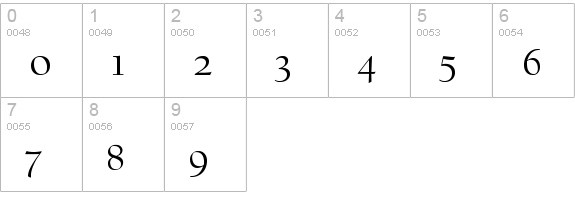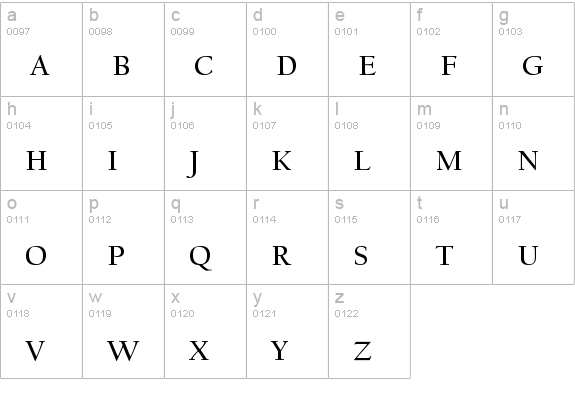
CalifornianMiddle-RomanExpert Font Details
CalifornianMiddle-RomanExpert font is a sophisticated and elegant typeface that exudes a timeless charm. Its classic Roman style combined with a touch of modernity makes it perfect for a wide range of design projects. The intricate details and graceful curves of each letter showcase the expert craftsmanship behind this font. What sets CalifornianMiddle-RomanExpert apart is its versatility - whether you're designing a formal invitation, a professional document, or a stylish logo, this font will elevate your work to the next level. Its legibility and readability ensure that your message will be conveyed with clarity and style. The best part? CalifornianMiddle-RomanExpert is completely free to download at FontsMarket.com. You can enhance your design projects with this exquisite font without any cost involved. Don't miss the opportunity to add a touch of sophistication to your creations with CalifornianMiddle-RomanExpert font.